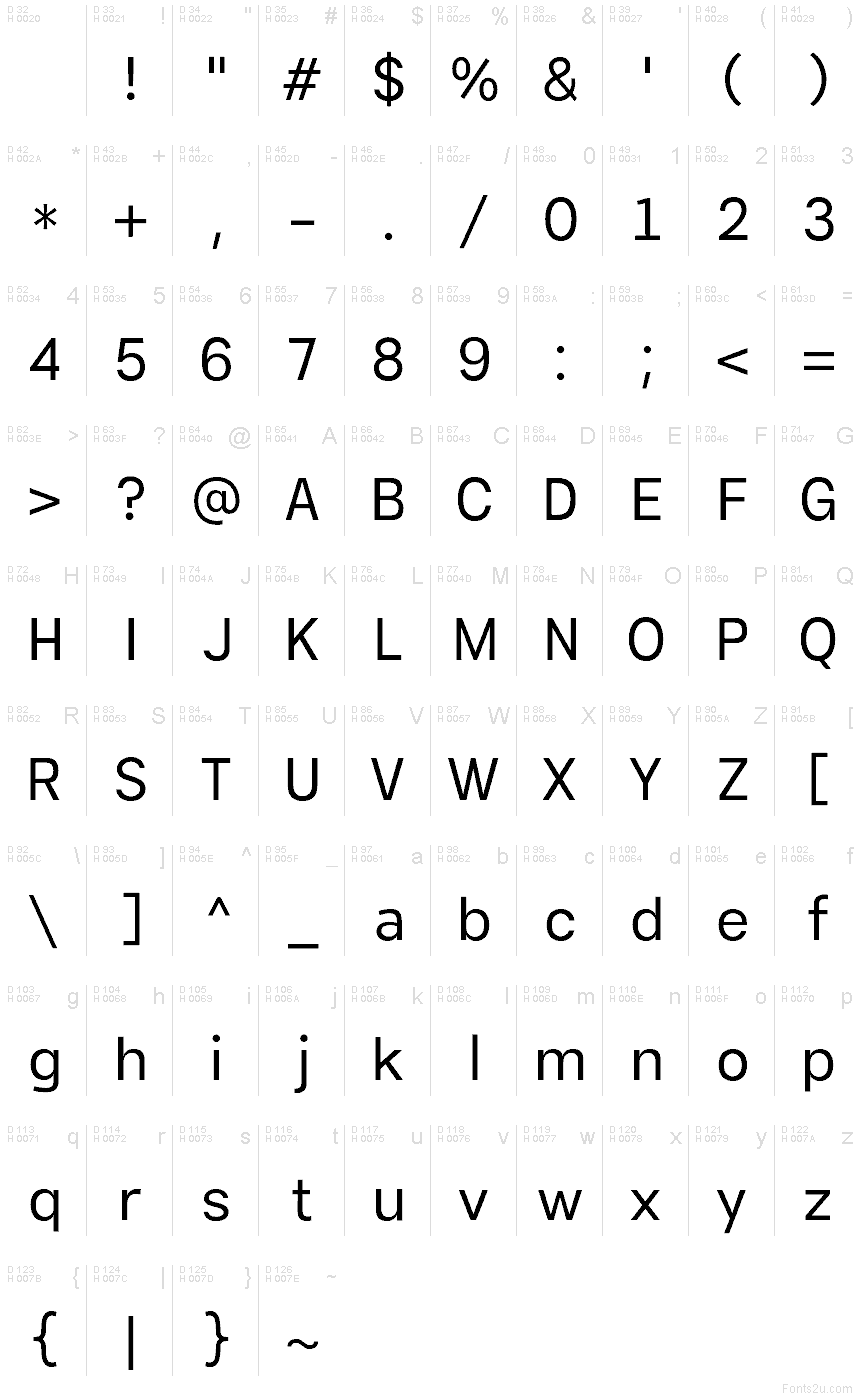
Mucitan Sans Regular
Mucitan Sans font by Fitrah Type is a clean and modern sans serif typeface with a minimalistic look. Its simplicity and versatility stand out while its professional, subtle design is suitable for any body text or title. With this free sans serif font, users will be able to create impactful designs that put the details first.
The versatile Mucitan Sans can be used for posters, invitations, advertisements, magazines, business cards, or stationery projects. Its amazing features make it useful in brochures and branding projects as well as websites and online platforms where information needs to be shared effortlessly.